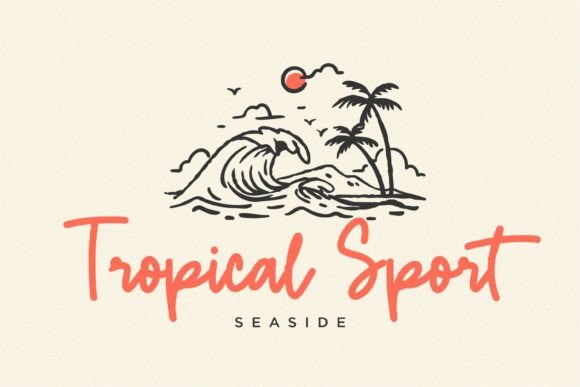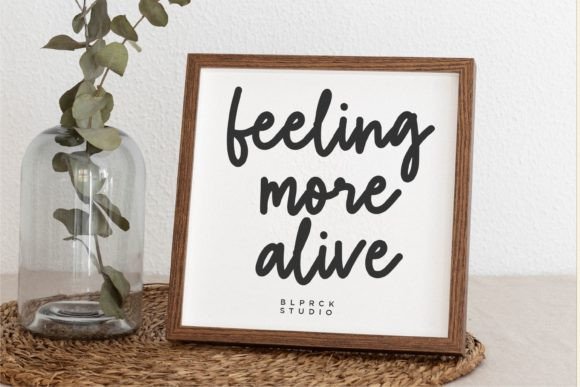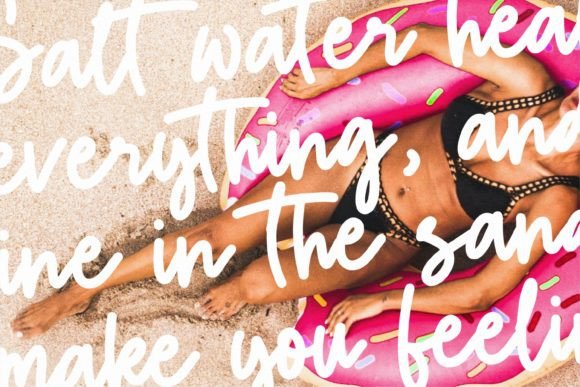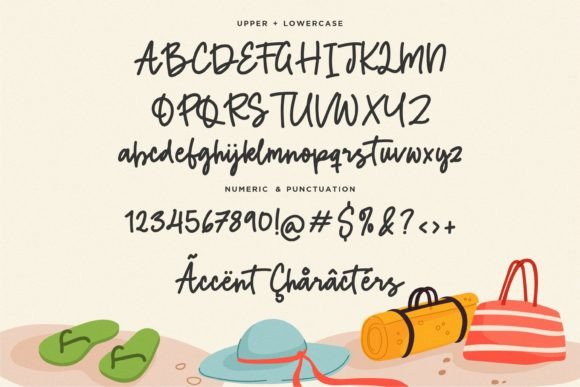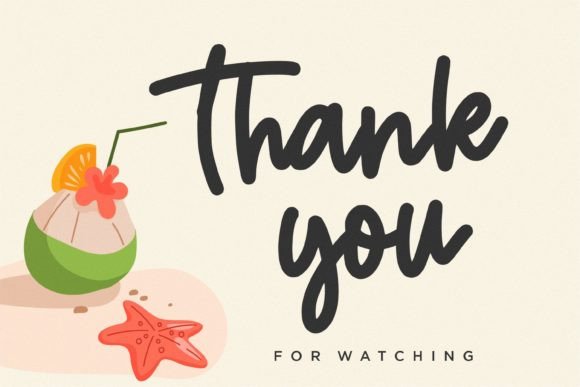
Introduction to Island Beach Font
Island Beach – a Modern Calligraphy that’s clean, elegant and perfect for a range of design projects.
With its smooth, effortless lines and understated sophistication, this font is the perfect choice for those who want a modern look that’s still timeless in its appeal Crafted with precision and care, this font is incredibly versatile and can be used for a range of design projects, including logos, branding, invitations, packaging, and more.
Key Features of Island Beach Font
Why Choose Island Beach Font?
Island Beach Font offers exceptional quality and versatility, making it a valuable addition to your design toolkit. Whether you’re creating for personal projects or commercial use, Island Beach Font delivers professional results.